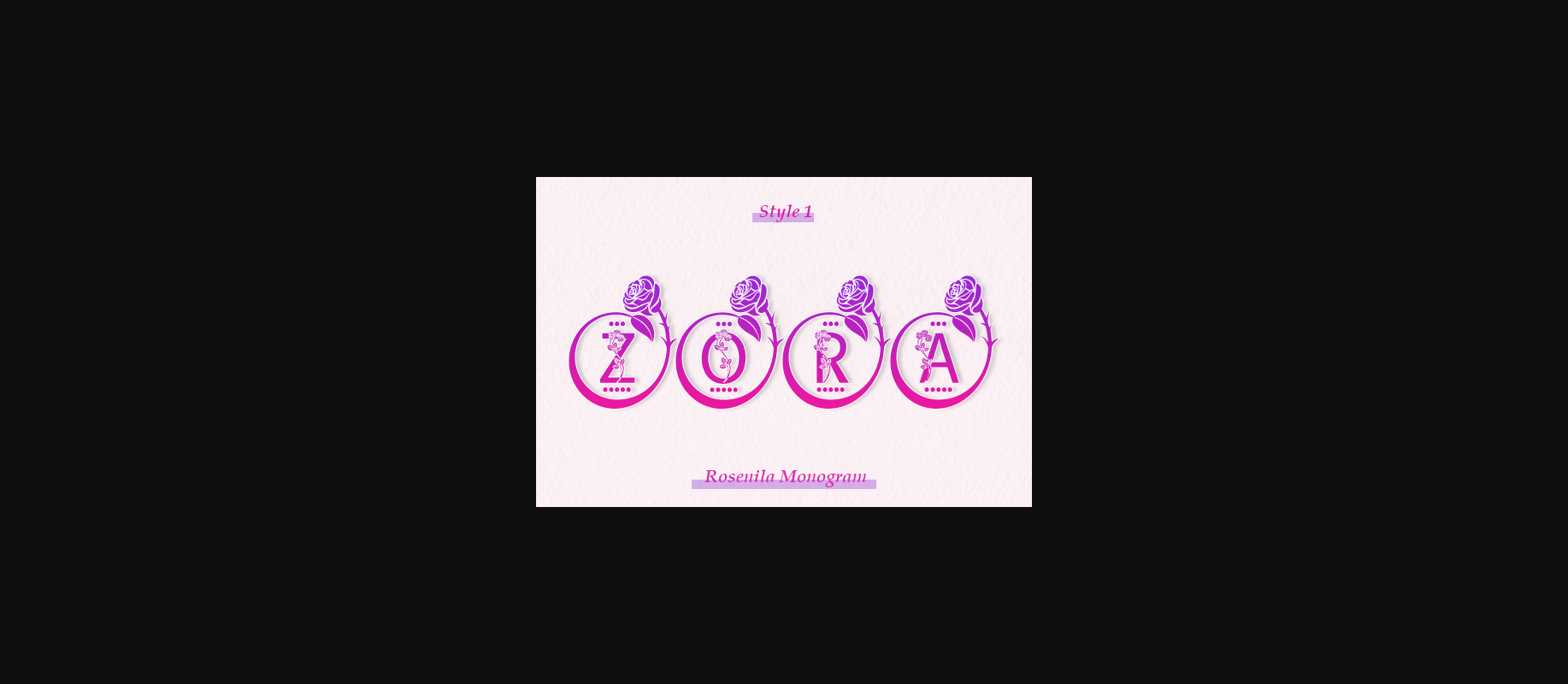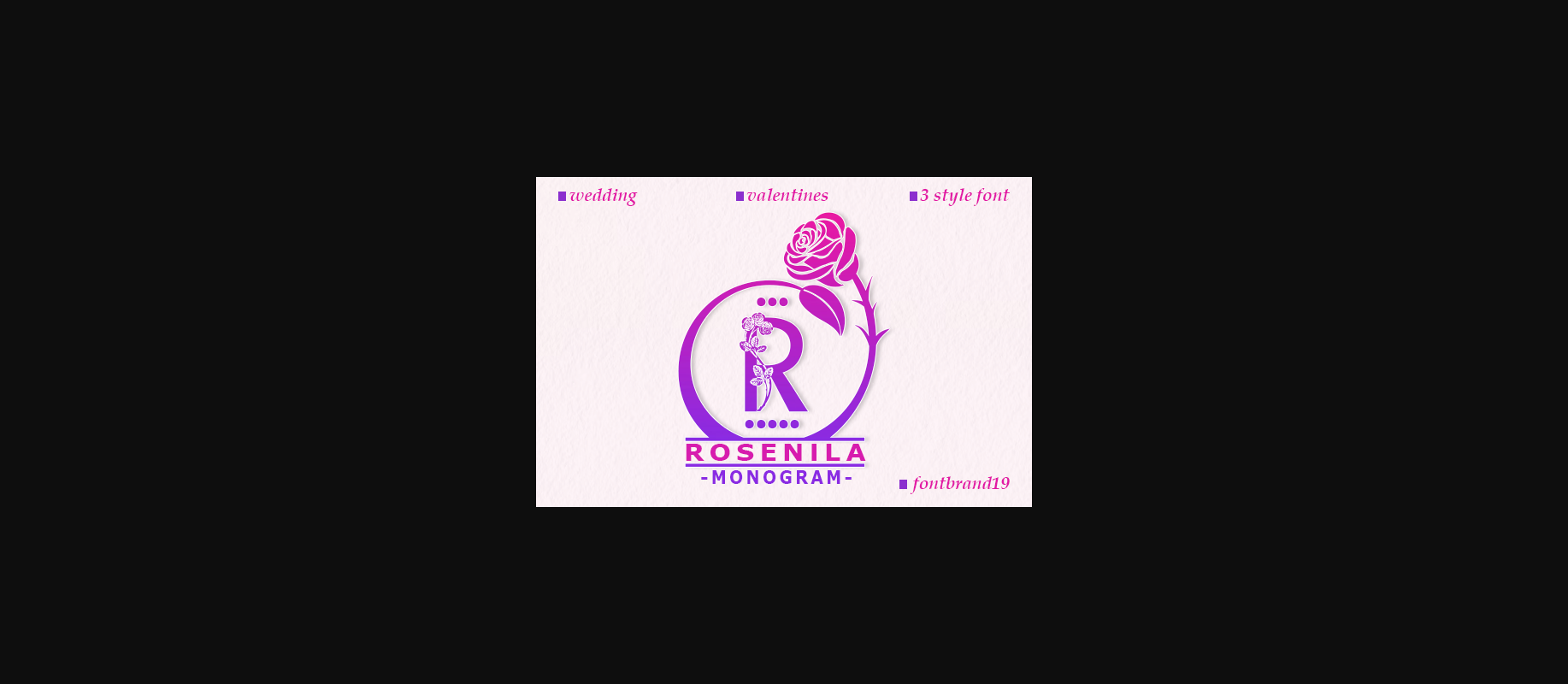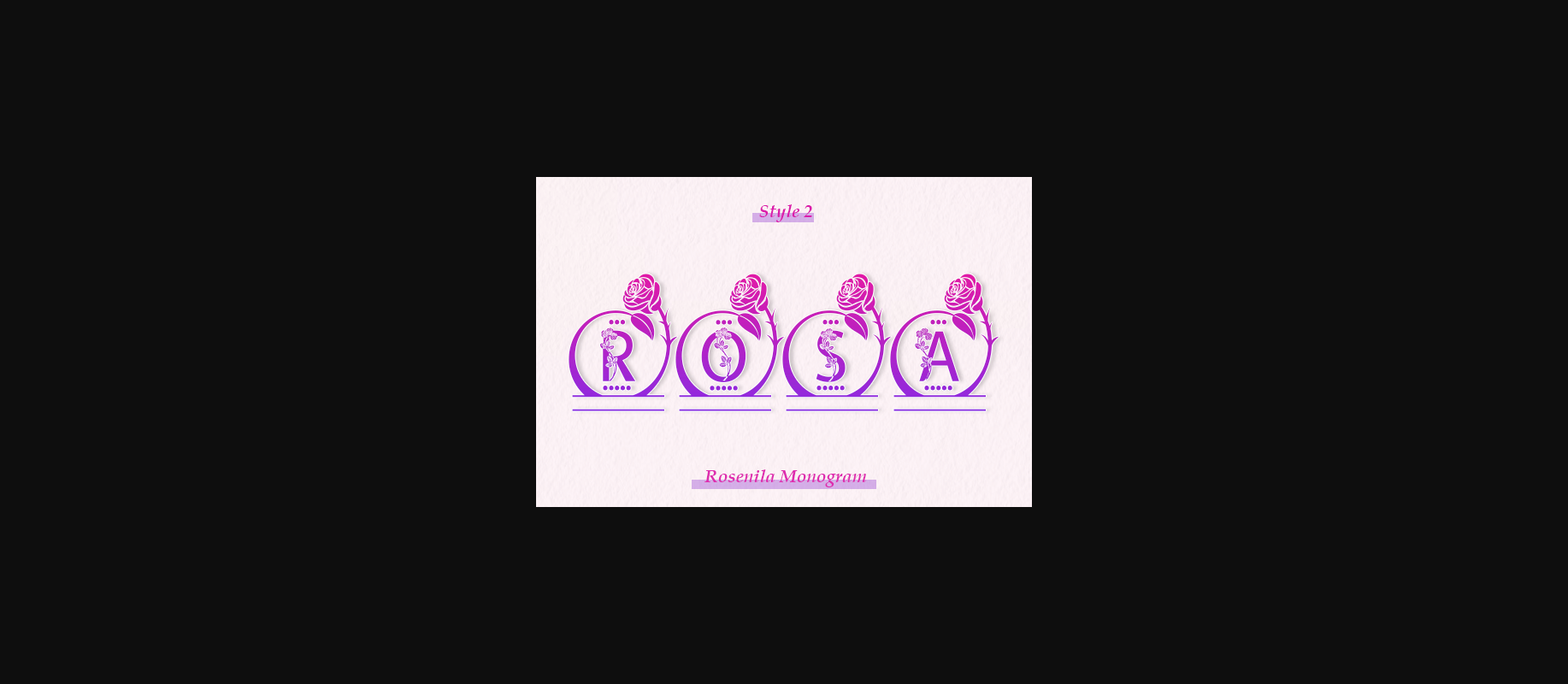
About Rosenila Monogram Font
Rosenila Monogram is a sweet and delicate decorative font. Add this romantic and lovely-looking font to each of your love letters, wedding invitations, or favorite design ideas, and you will be astounded by the outcome.